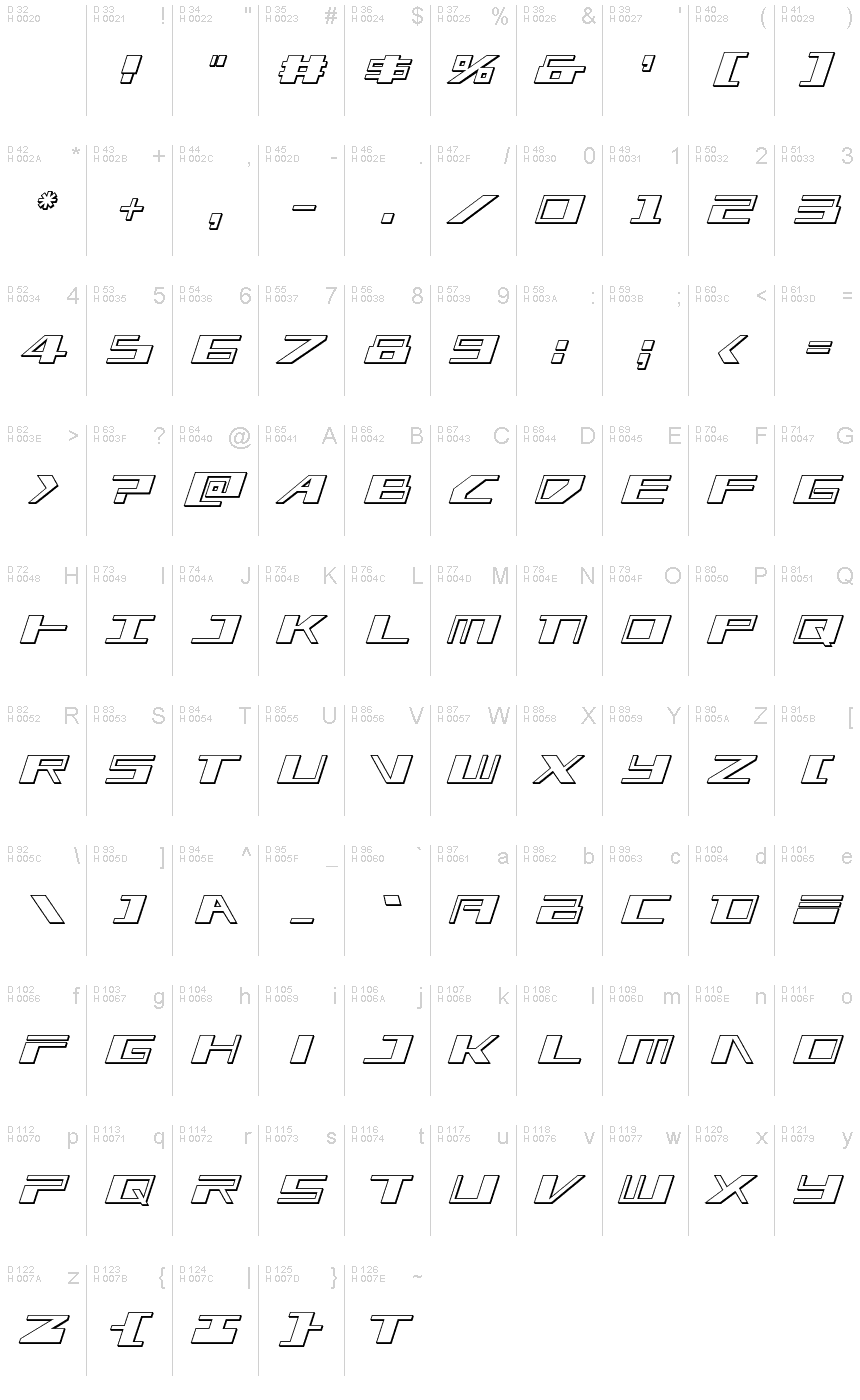
3AGLE 3D Italic
Dive into the digital depths with 3agle 3d Italic, a cutting-edge member of the Iconian Fonts family. This bold display font exudes futuristic flair, making it an instant standout for tech-centric and entertainment projects. With its expanded width and 3D techno style, this typeface crafts immersive experiences in virtual reality interfaces, gaming graphics, and modern advertising campaigns.
The dynamic italics of 3agle 3d Italic not only add motion but also sophistication to your creative endeavors—perfect for designers aiming to leave a lasting impression in the digital realm.